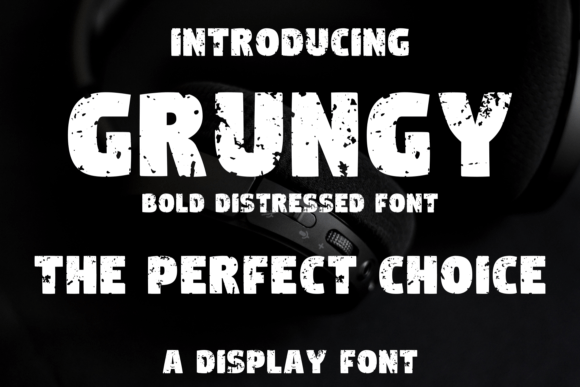
Unleash Your Creativity with Grungy Font: A Unique Display Font
Are you tired of using the same old fonts for your creative projects? Do you want to add a touch of uniqueness and edginess to your designs? Look no further than Grungy Font, an incredibly unique display font that is sure to become a true favorite among designers and creatives.
What is Grungy Font?
Grungy Font is a masterfully designed display font that is perfect for those who want to add a touch of grit and grunge to their designs. With its unique and edgy style, this font is sure to make your creative ideas stand out from the crowd. Whether you’re working on a branding project, a poster, or a website, Grungy Font is the perfect choice for those who want to add a bit of attitude to their designs.
Key Features of Grungy Font
- Unique and Edgy Style: Grungy Font has a one-of-a-kind design that is sure to grab attention and add a touch of edginess to your designs.
- Highly Versatile: This font is perfect for a wide range of creative projects, from branding and posters to websites and social media graphics.
- Easily Readable: Despite its grungy style, this font is surprisingly easy to read, making it perfect for use in a variety of contexts.
- Masterfully Designed: Grungy Font has been carefully crafted to ensure that it looks great in any size or context.
The Benefits of Using Grungy Font
So why should you choose Grungy Font for your next creative project? Here are just a few benefits of using this unique display font:
- Adds a Touch of Edginess: Grungy Font is perfect for those who want to add a bit of attitude to their designs.
- Stand Out from the Crowd: With its unique style, Grungy Font is sure to make your designs stand out from the crowd.
- Perfect for Creative Projects: This font is ideal for a wide range of creative projects, from branding and posters to websites and social media graphics.
- Incredibly Versatile: Grungy Font can be used in a variety of contexts, from large headlines to smaller body text.
How to Use Grungy Font
Using Grungy Font is easy! Here are a few tips for getting the most out of this unique display font:
- Use it as a Headline Font: Grungy Font is perfect for use in headlines and titles, where its unique style can really make an impact.
- Experiment with Different Sizes: This font looks great in a variety of sizes, so don’t be afraid to experiment and find the perfect size for your design.
- Pair it with Other Fonts: Grungy Font pairs well with a wide range of other fonts, so feel free to get creative and experiment with different combinations.
In conclusion, Grungy Font is an incredibly unique display font that is sure to become a true favorite among designers and creatives. With its edgy style, versatility, and ease of use, this font is perfect for a wide range of creative projects. Whether you’re looking to add a touch of attitude to your designs or simply want to stand out from the crowd, Grungy Font is the perfect choice.
- What is Grungy Font?: Grungy Font is a unique display font that is perfect for adding a touch of edginess to your designs.
- What types of projects is Grungy Font suitable for?: Grungy Font is perfect for a wide range of creative projects, including branding, posters, websites, and social media graphics.
- Is Grungy Font easy to read?: Yes, despite its grungy style, Grungy Font is surprisingly easy to read.